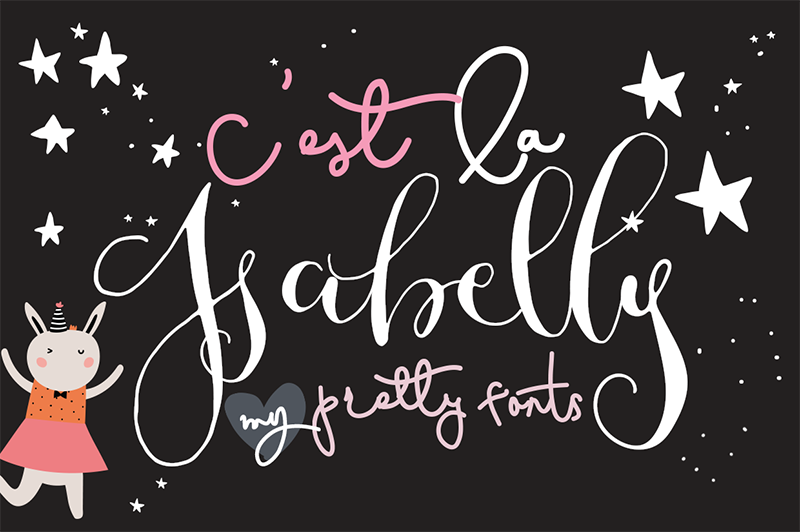
Preview and download Cest La Isabelly Alt Font. Created by Mycandythemes in Script Calligraphy styles with Free for personal use license.
Font name: | Cest La Isabelly Alt |
Author: | Mycandythemes |
C'est La Isabelly Alt fonts is PDF embedded and Office software friendly, best for your signature, invitation, card design or journaling, any modern until classy design needs. This version is Personal Use only. If you want to use it on commercial project, find the license at https://crmrkt.com/8PpWvR or my etsystudio http://etsy.com/shop/mycandythemes Get the complementary font C'est La Isabella at dafont http://www.dafont.com/cestlaisabelly.font as seen on preview below. Hope you like it! |